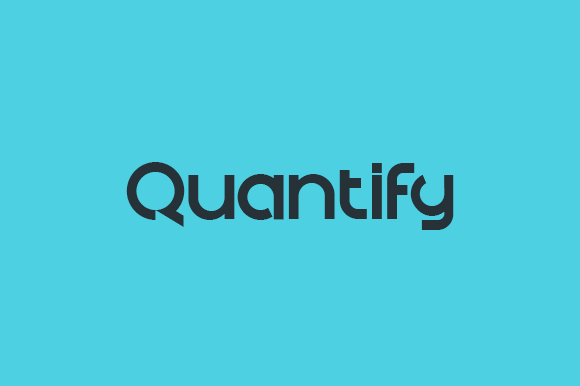
Step into the world of elegance and allure with Quantify Font, a modern sans serif family that breathes life into your designs. Its clean lines and striking letterforms create an exquisite canvas for your creative expressions. Immerse yourself in a symphony of visual beauty as Quantify Font dances across your screens, leaving a trail of timeless sophistication. Crafted by the ingenious minds at Sentype Studio, Quantify Font is the epitome of contemporary artistry, offering a seamless fusion of style and functionality.
Awaken your senses to the captivating charm of Quantify Font. Its delicate curves and poised angles evoke a sense of balance and harmony, making it the perfect choice for designers seeking a touch of grace and refinement. From enchanting logos and headlines that command attention to sleek body text that invites readers into your world, Quantify Font effortlessly elevates your designs to new heights of brilliance.
Explore the boundless versatility of Quantify Font. Whether you're crafting captivating marketing materials, designing stunning websites, or adding a touch of elegance to your social media posts, Quantify Font seamlessly adapts to your creative vision. Its comprehensive range of weights, from delicate Hairline to bold Black, empowers you to convey a spectrum of emotions and messages with unwavering precision.
Quantify Font is more than just a collection of glyphs; it's an artistic masterpiece that amplifies your voice and resonates with your audience. Its intuitive design ensures effortless readability, while its meticulously crafted details ensure that every letter, every word, and every sentence leaves a lasting impression.
Join the creative revolution and embrace the allure of Quantify Font. Let your imagination run wild as you craft designs that captivate and inspire. Discover the true essence of visual storytelling as Quantify Font transforms your words into works of art, enchanting your audience with its timeless appeal. Step into the realm of design excellence and make your mark on the world with Quantify Font, the ultimate sans serif companion for the modern artist.